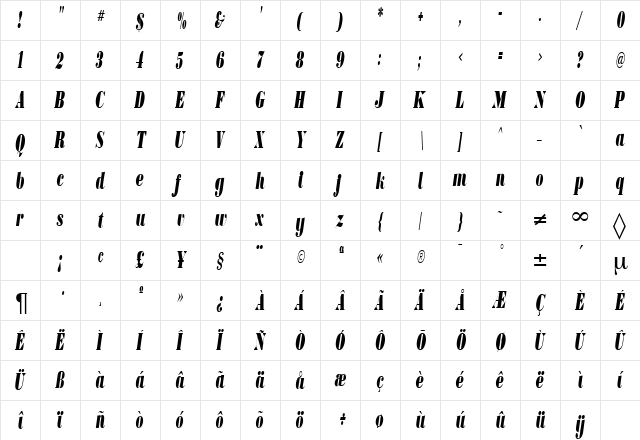
BodoniCondensedUltra RegularItalic Font Preview
Design Context for BodoniCondensedUltra Typeface
BodoniCondensedUltra takes a measured approach to typography — its balanced proportions and neutral character make it a reliable workhorse for both digital and print work. The slanted form adds forward momentum and visual energy. Its narrow stance lets it pack a punch even in space-constrained designs.